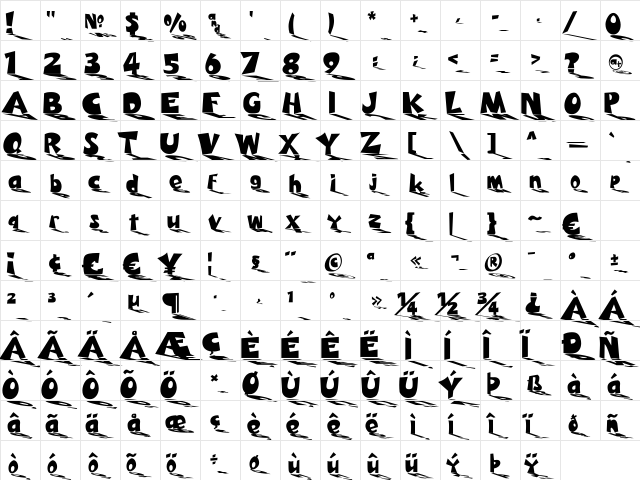
PeeKnuckle 'Shadowed' Regular
Design Context for PeeKnuckle 'Shadowed' Typeface
PeeKnuckle 'Shadowed' is built around its visual character rather than neutral utility — its distinctive forms are designed to make an impression at display sizes.
Font Pairing: Pair with a clean neutral sans-serif for body copy to let PeeKnuckle 'Shadowed''s character lead without overwhelming the composition.
Pro Tip: Use PeeKnuckle 'Shadowed' exclusively at display sizes — it was designed to be seen, not read at length. Let a neutral companion handle body copy.